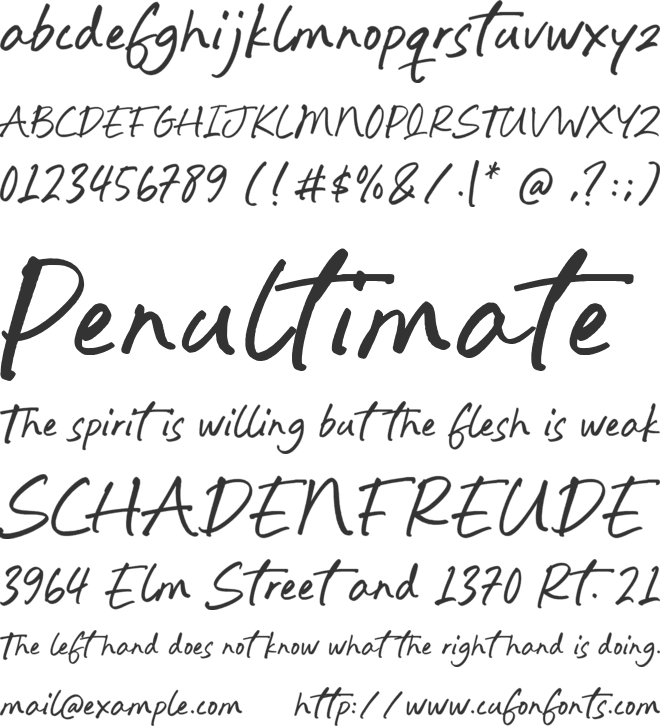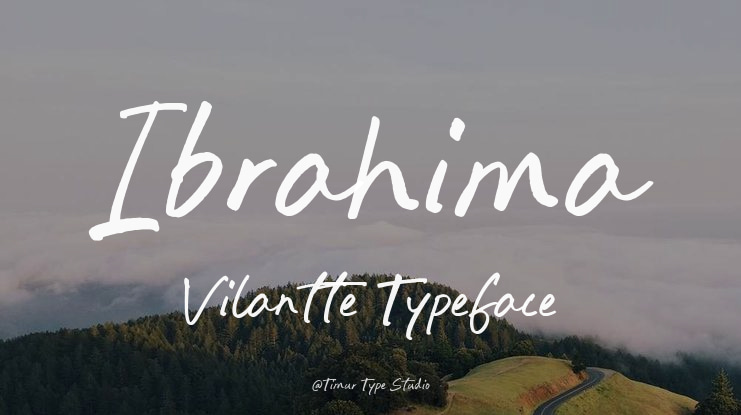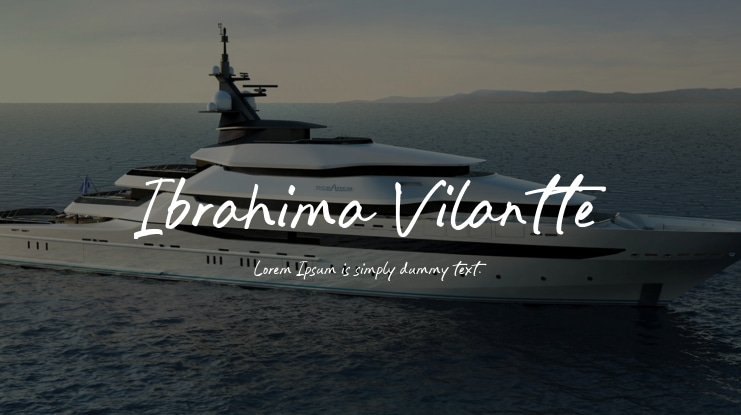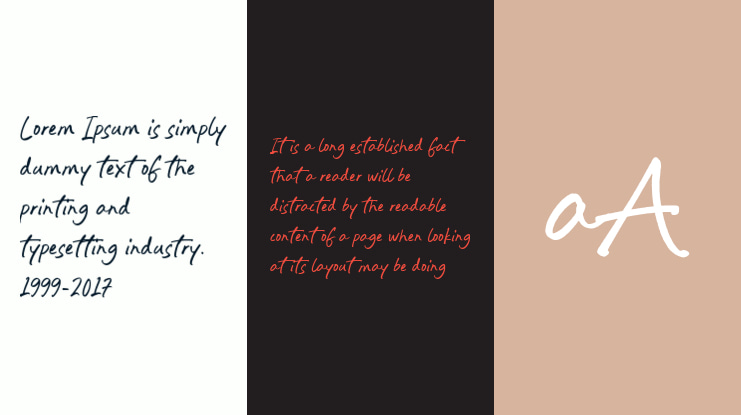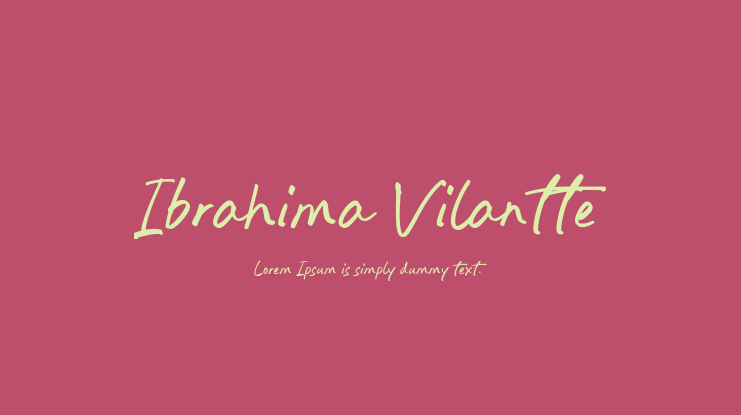
**Introducing Ibrahima Vilantte by Timurtype Studio!**
Ibrahima Vilantte is a modern, hand-brushed font that exudes elegance and fluidity. With its organic strokes and artistic flair, this font creates a warm, inviting atmosphere, making it ideal for various design projects, from branding to invitations. Its unique blend of casual charm and sophistication ensures that Ibrahima Vilantte stands out while maintaining readability, adding a creative touch to any text.
Ibrahima Vilantte supports multiple languages.
**Ibrahima Vilantte Font Features:** - Full set of standard alphabet and punctuation